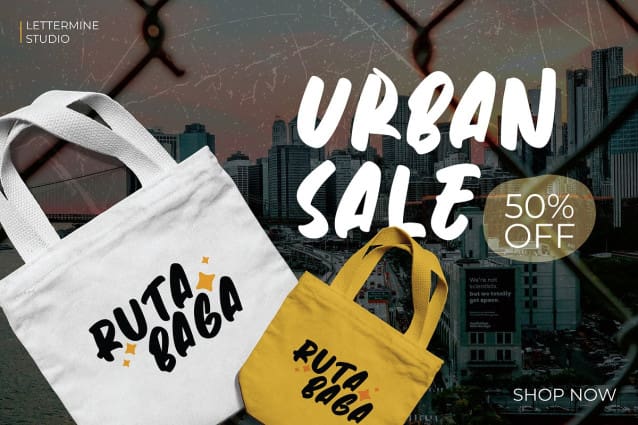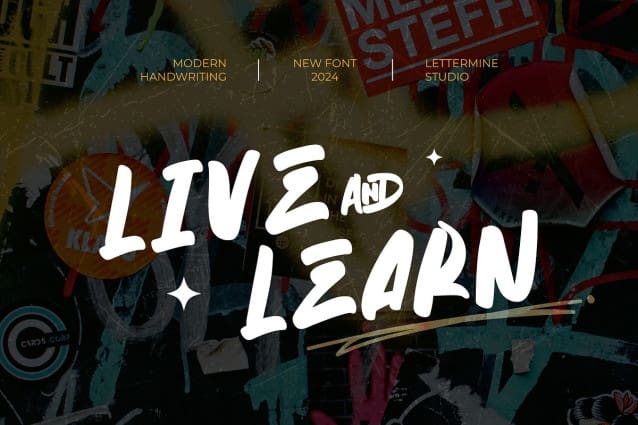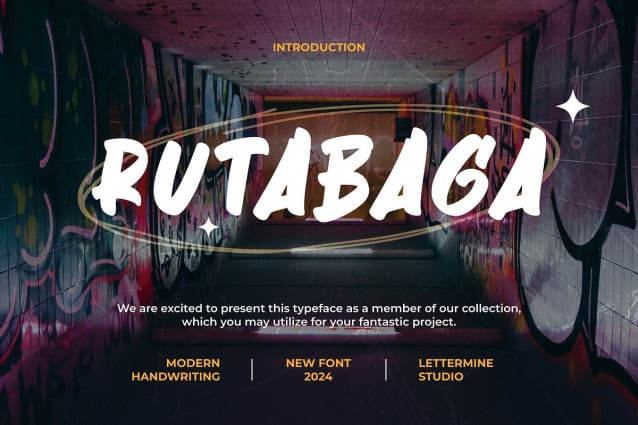
Rutabaga Brush Font
Rutabaga Brush Font. Crafted with precision and care, this brush handwritten font effortlessly combines style with functionality, making it an ideal choice for a variety of projects. Enhance your creative projects with its captivating appeal